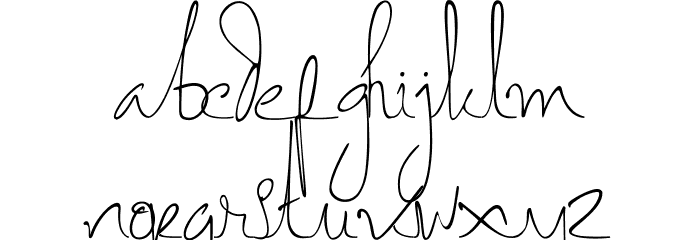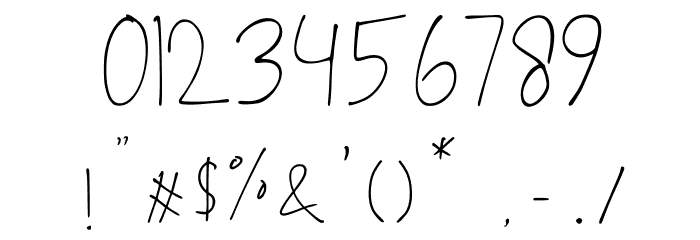
Asmarandana Font
This font features a unique, handwritten style with a playful and artistic flair. The letters are elongated and have a whimsical, flowing quality that gives them a sense of movement. The uppercase letters are tall and narrow, while the lowercase letters maintain a consistent height with a slightly more relaxed form. Numbers and special characters follow the same fluid style, adding to the cohesive look of the font. The overall appearance is casual yet sophisticated, making it suitable for creative projects that require a personal touch.
A whimsical, handwritten font with elongated, flowing characters.
- Proposed Projects: Ideal for greeting cards, invitations, personal branding, and artistic projects.
- Use Case: Logos, Invitations, Artistic projects